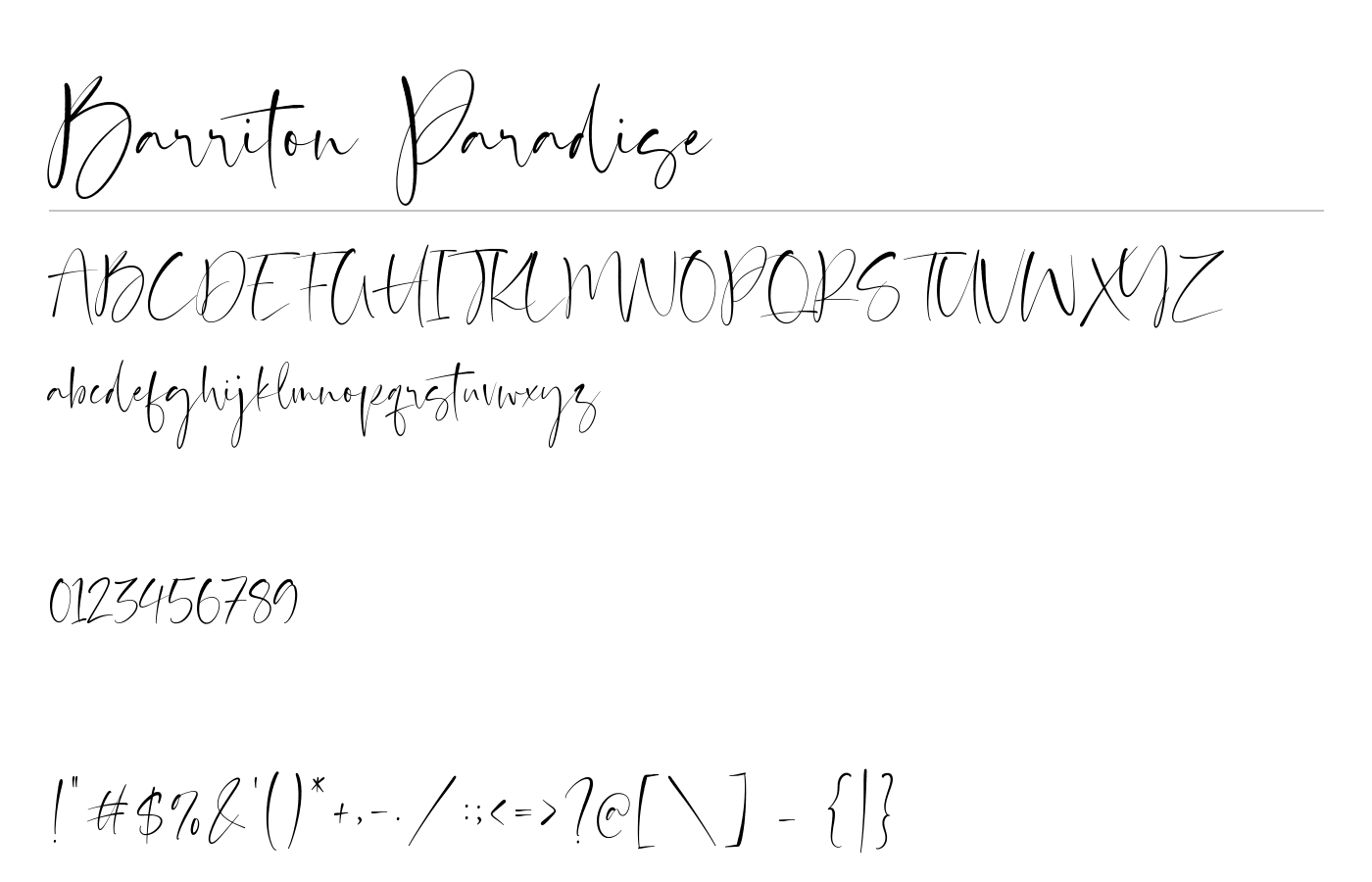
Barriton Paradise is a delicate, handwritten script font with tall, slender letterforms and a natural, flowing stroke that feels both elegant and personal. Its thin lines and casual, slightly irregular shapes give it a charming, airy quality perfect for invitations, branding, and creative projects that seek a stylish yet approachable look. Ideal for luxury, fashion, or artistic designs, this font brings a touch of grace and individuality without feeling overly formal.
Barriton Paradise Font
About Barriton Paradise Font